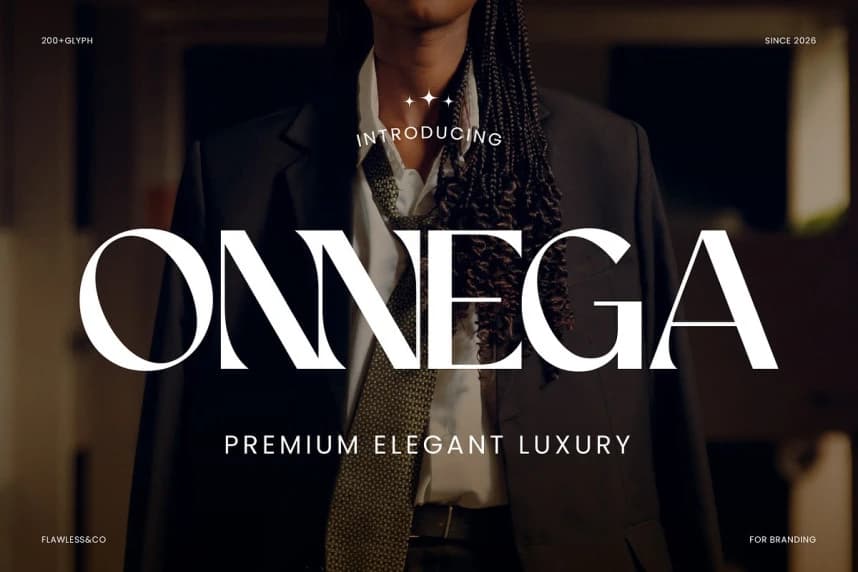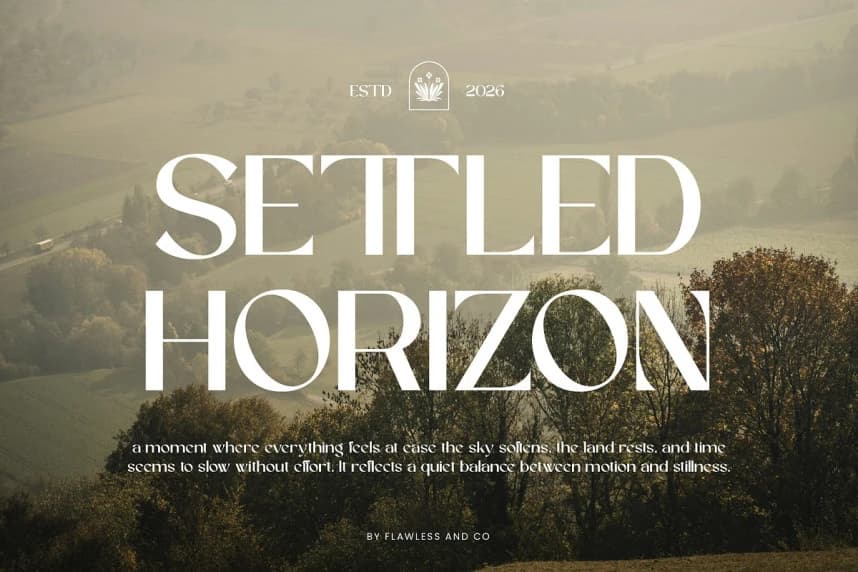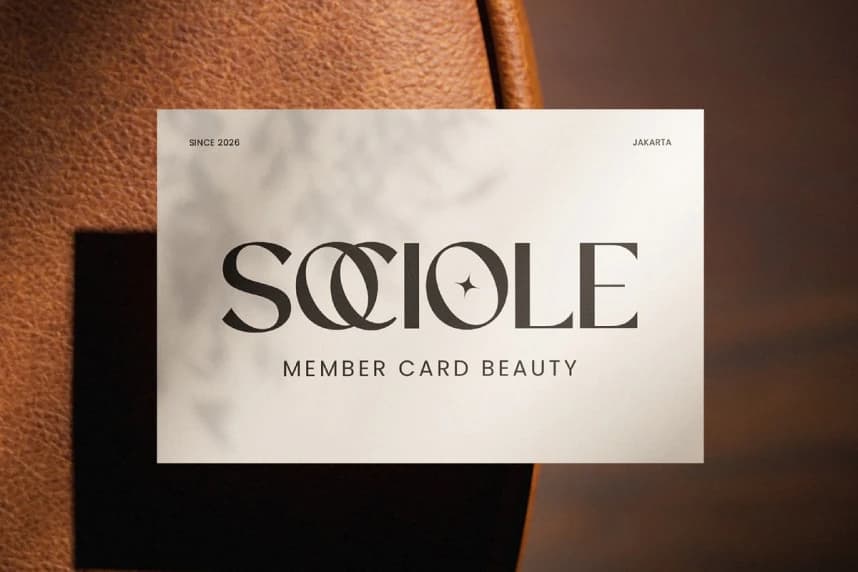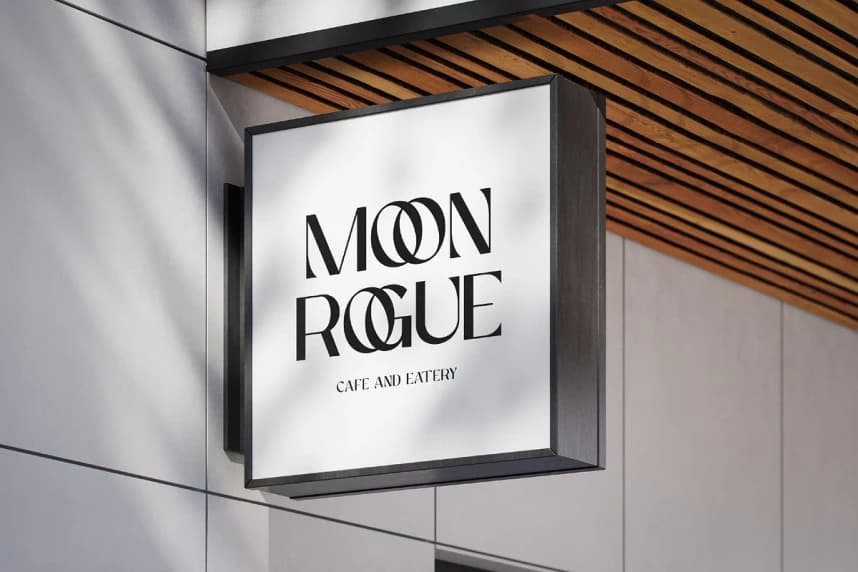
Onnega Font
Onnega Font is a refined serif typeface that captures the essence of luxury through clean structure and elegant detail. Designed with balanced proportions, subtle curves, and high-contrast strokes, Onnega creates a graceful yet confident visual tone.